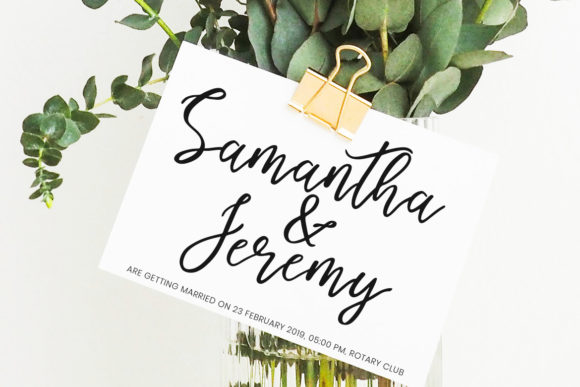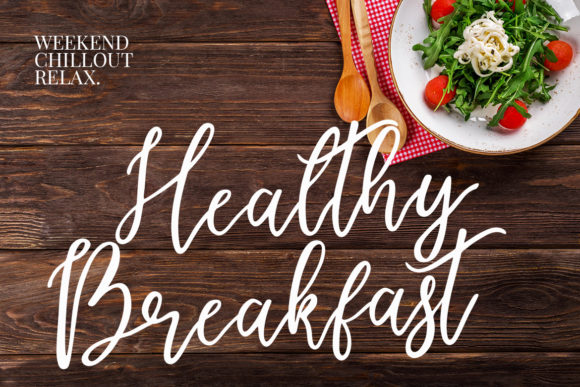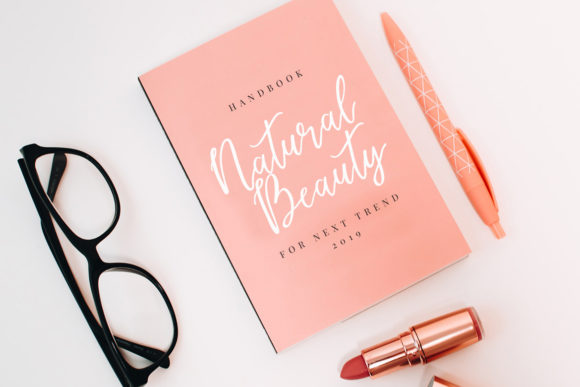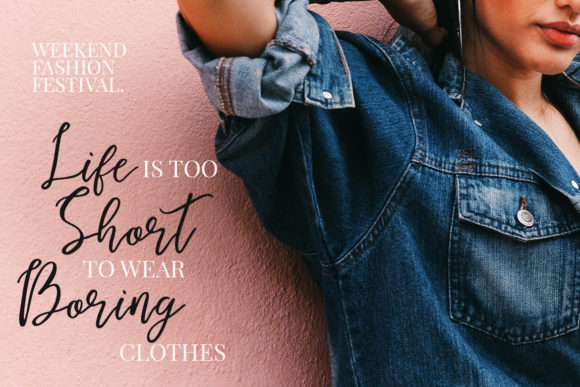
Introduction to Endestry Font
Have you ever been working on a design project, and you just can’t seem to find the perfect font to capture the essence of your idea? I know I have. As a designer, I’ve spent countless hours searching for the perfect font to bring my creative vision to life. And then, one day, I stumbled upon the Endestry Font – a sweet, flirty, bouncy and smooth modern calligraphy script font that has become my go-to choice for all my design projects.
The Endestry Font is more than just a font – it’s a design resource that can elevate your creative project to the next level. With its personal touch, it adds an amazing look to your designs, making it perfect for branding projects, logos, wedding designs, social media posts, and more. Whether you’re looking for a free download or a high-quality font to use in your next project, the Endestry Font is definitely worth checking out.
What sets the Endestry Font apart from other fonts is its versatility and ease of use. It’s perfect for designers who want to add a touch of personality to their designs, and it’s also great for those who need a font with a transparent background for their design projects.
Key Features of Endestry Font
- High-quality, unique design perfect for creative projects and artistic expressions.
- Features a high-resolution design, suitable for printing and digital applications at 300 DPI.
- Unique characteristics include intricate details and ornate design elements, adding an extra layer of sophistication to any project.
- Perfect for designers looking for a distinctive and high-quality design resource for their creative projects.
Honest Review: Endestry Font
I recently stumbled upon the Endestry Font, and I must say it’s been a game-changer for my creative projects. This font is a high-quality design resource that’s perfect for designers who want to add a unique touch to their work.
- ✨ High-quality design: The Endestry Font is incredibly detailed and visually appealing, making it perfect for professional projects.
- ✨ Transparent background: The font’s transparent background makes it easy to use on any background, giving you complete design control.
- ⚠️ Limited font styles: While the Endestry Font is a great resource, it’s limited to a single style, which may not be suitable for designers who need a range of font options.
- ⚠️ Not suitable for large-scale use: The font may not be suitable for large-scale use, such as in books or magazines, due to its unique design.
Overall, I’m impressed with the Endestry Font, and I would definitely recommend it to designers who are looking for a high-quality, unique font for their creative projects.
To get the most out of the Endestry Font, experiment with different font sizes, colors, and styles. Use the font with a transparent background to create a unique design resource. You can also combine the Endestry Font with other design elements to create a high-quality design.
The Endestry Font is a versatile design resource that can be used for a variety of creative projects, including logos, business cards, and brochures. You can also use the font to create a high-quality design for social media, websites, or marketing materials.